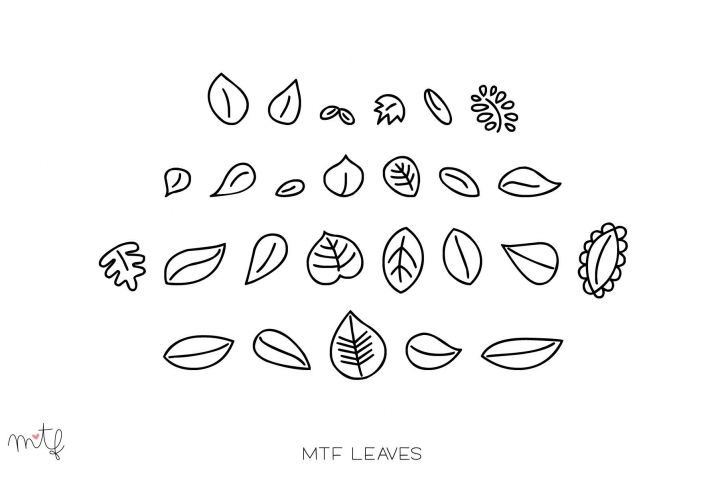
Simple leafy accents fill this beautiful dingbats font. Use them to add a natural flair to your writing, decorate notebooks or to-do lists, or come up with your own creative ways of using them!